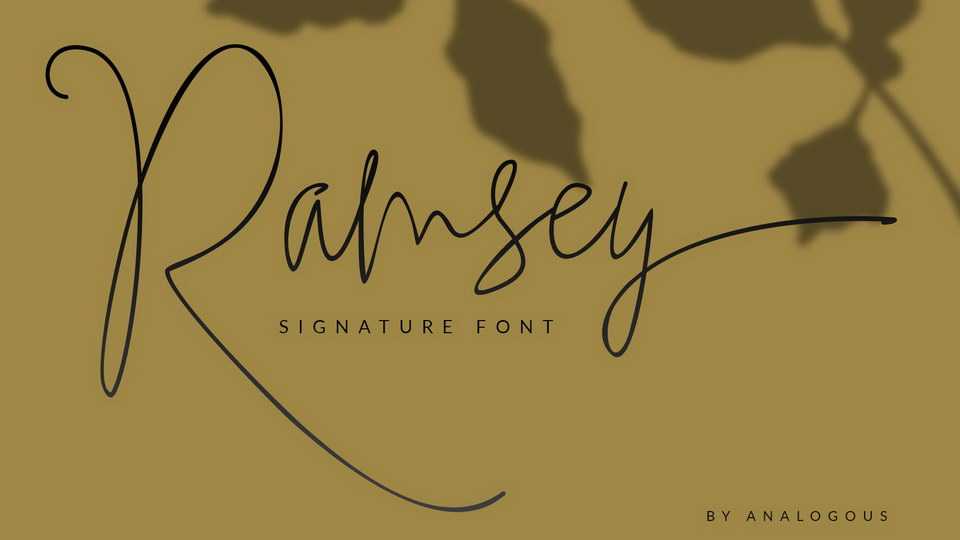
Download Ramsey font, a stylish hanwritten signature script with a natural look. Ramsey font is suitable to make a design for logo, branding, business cards, beautiful fashion designs, wedding invitation, signature or handwritten quote.
Designer: Analogous